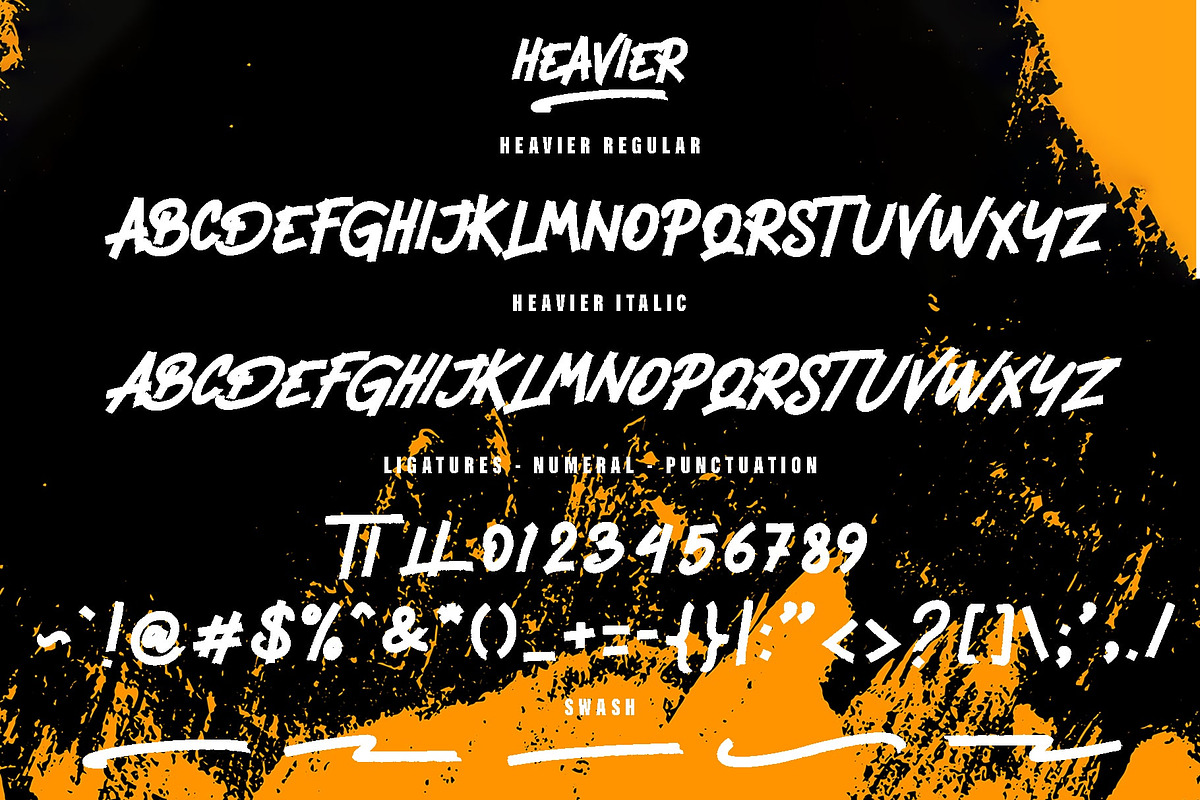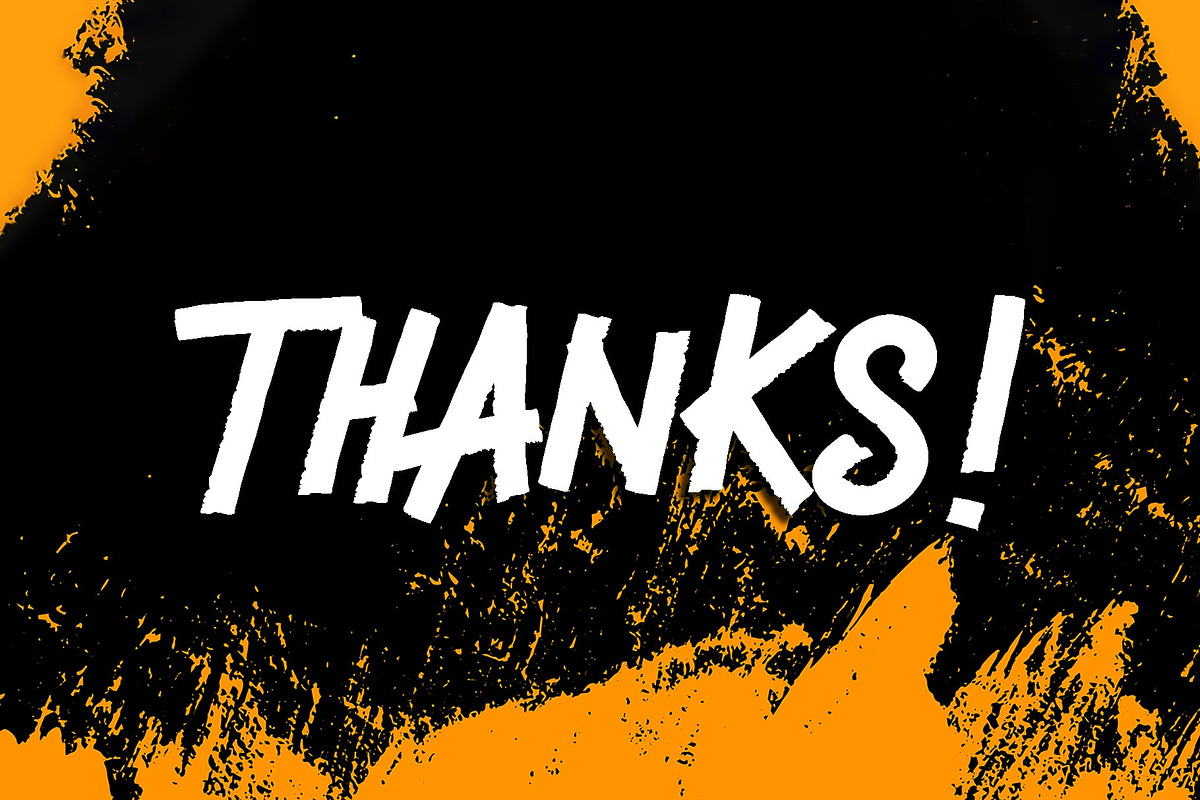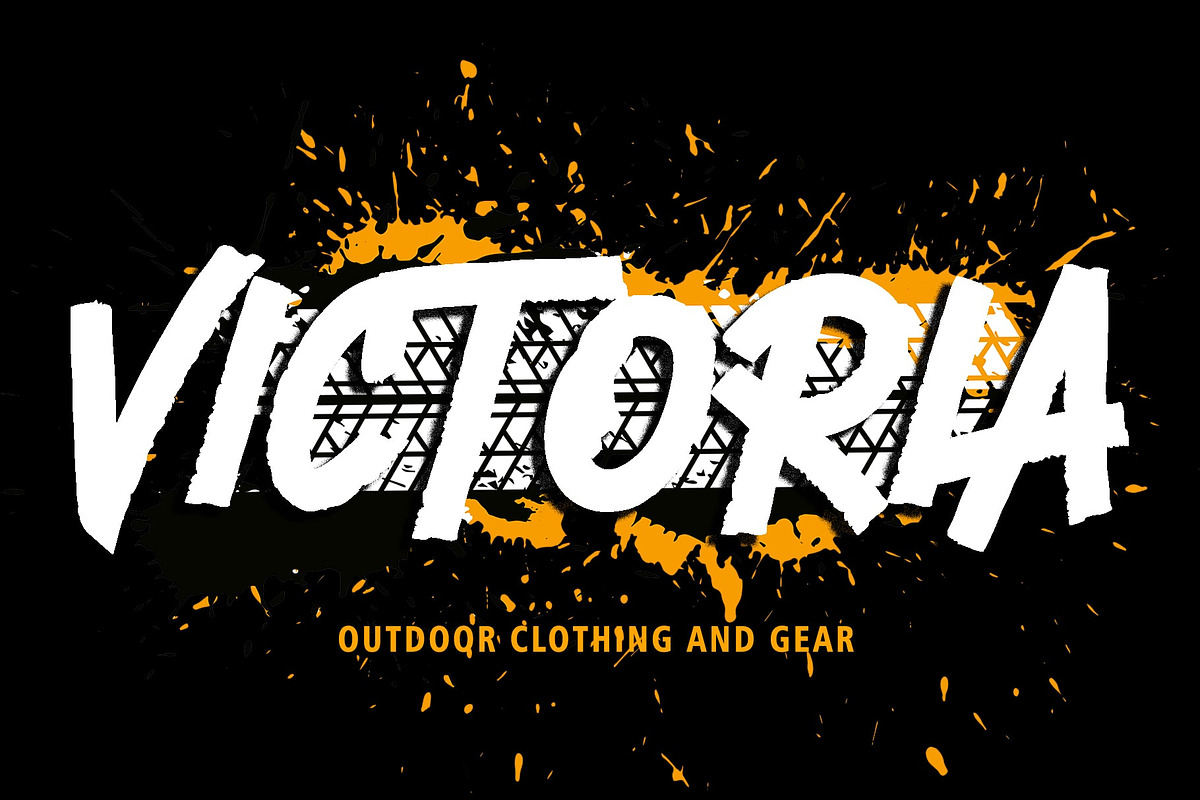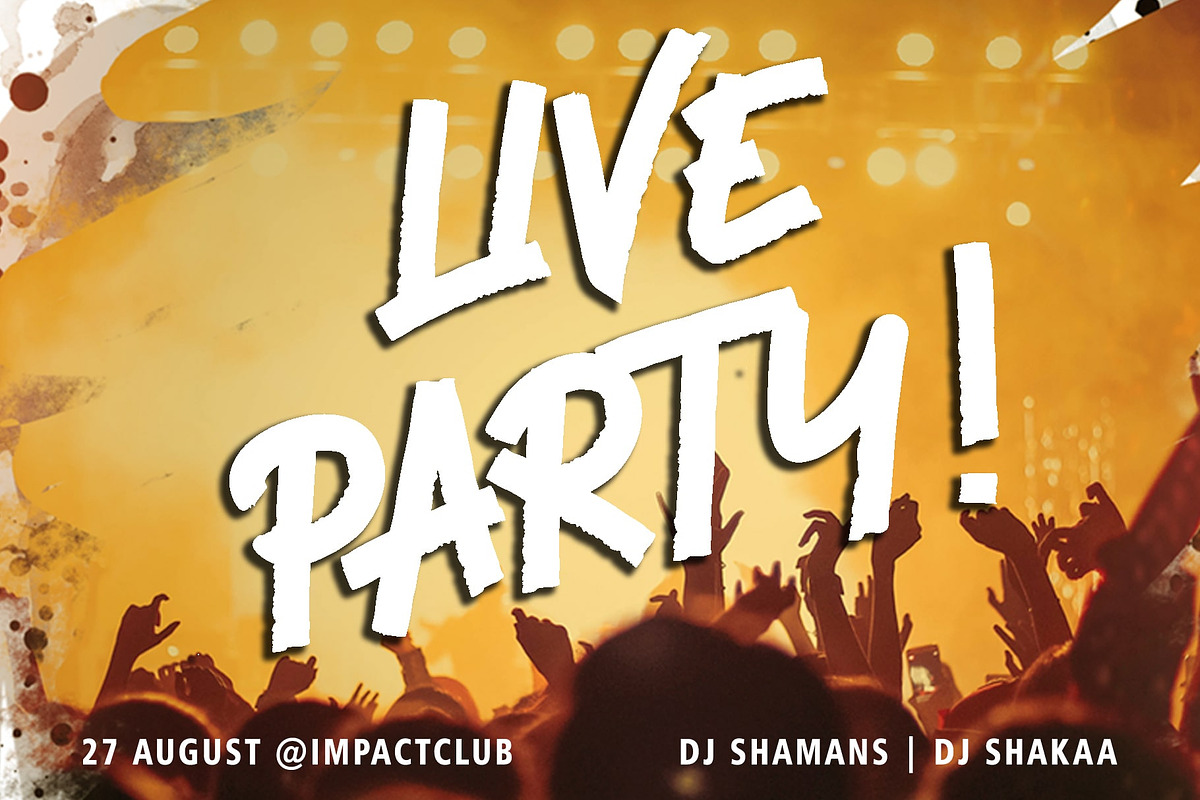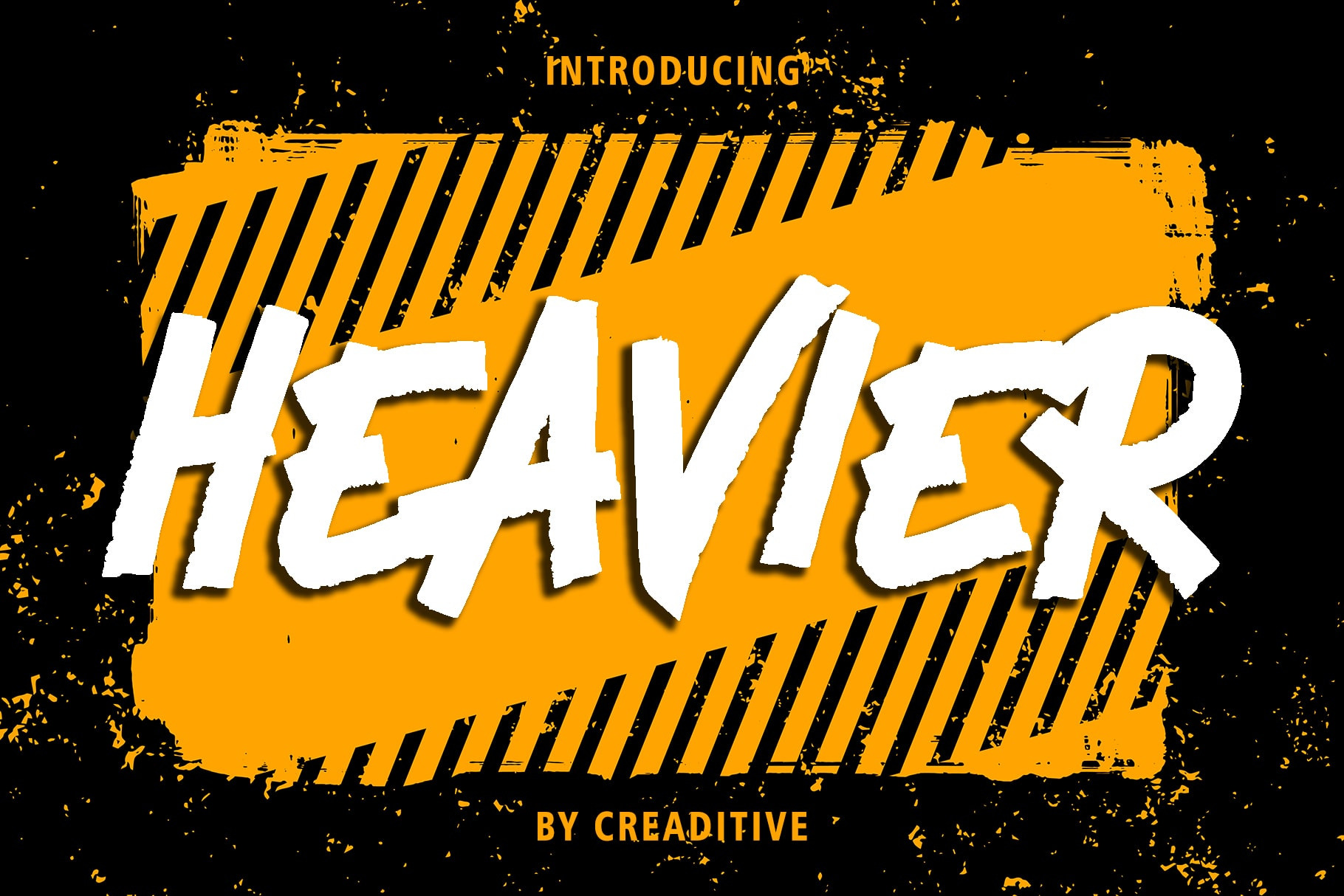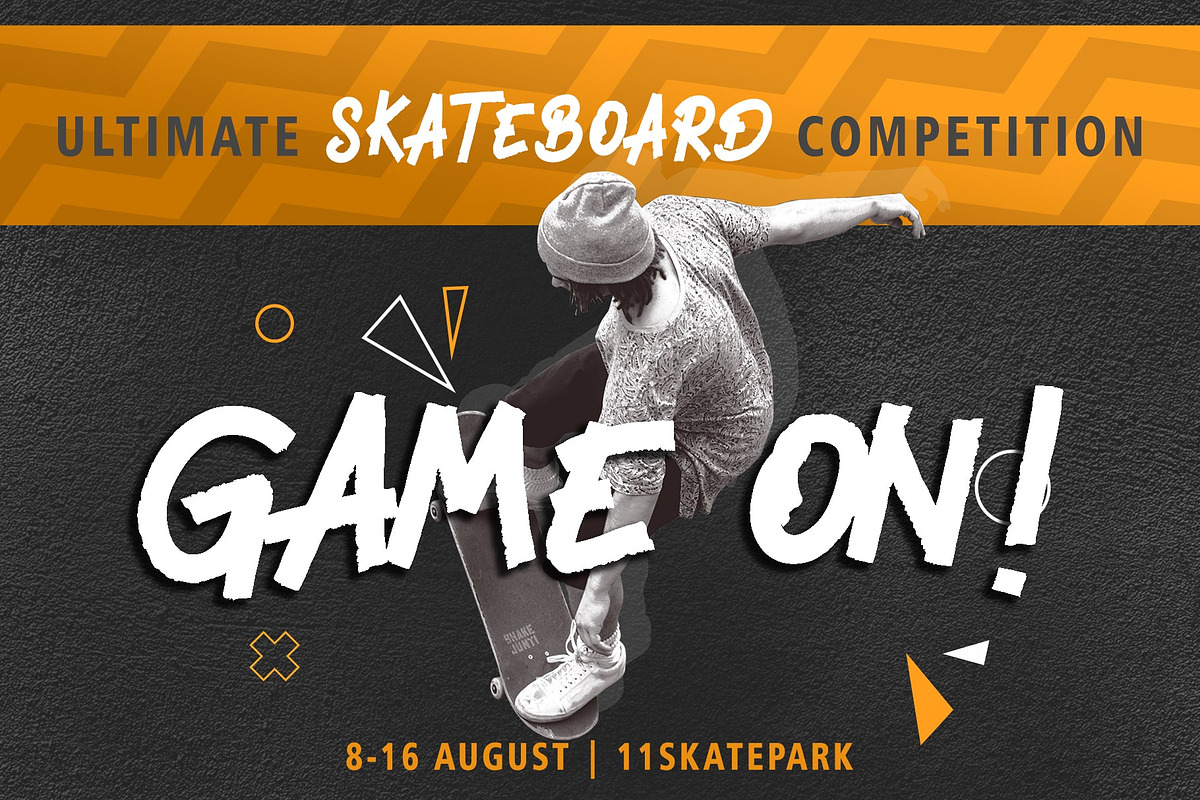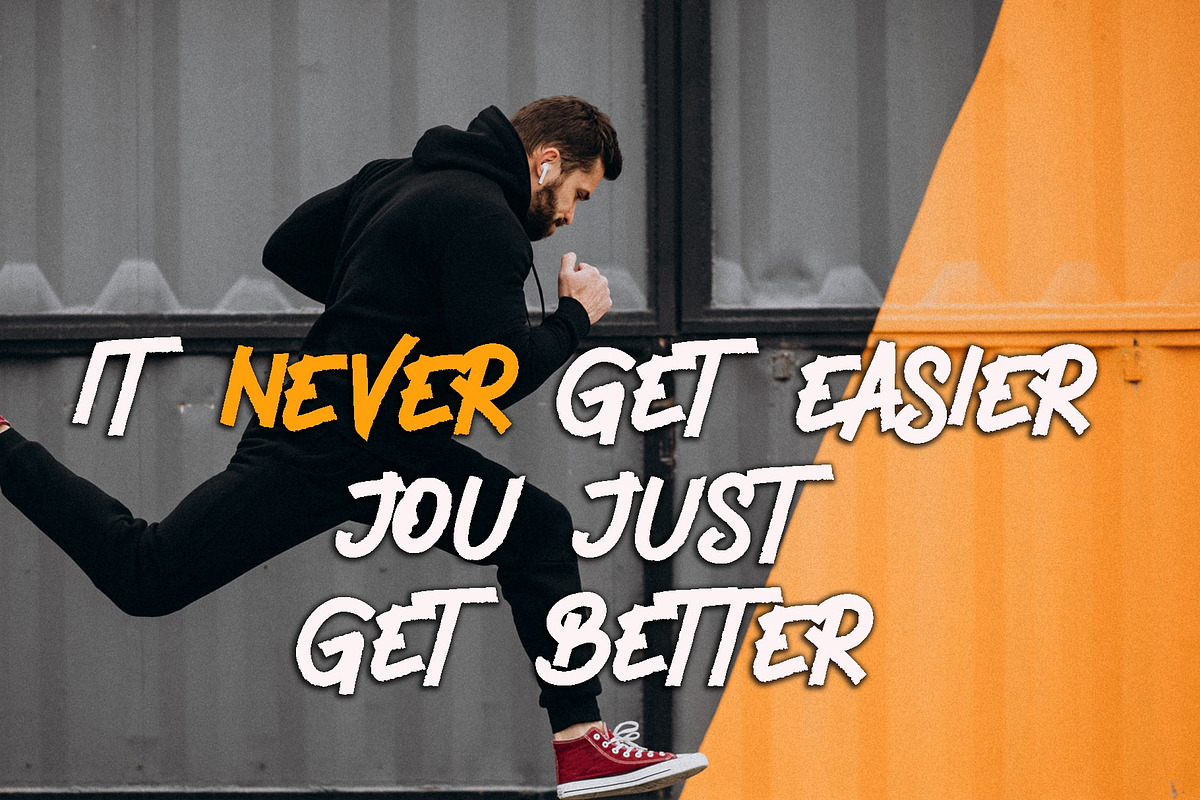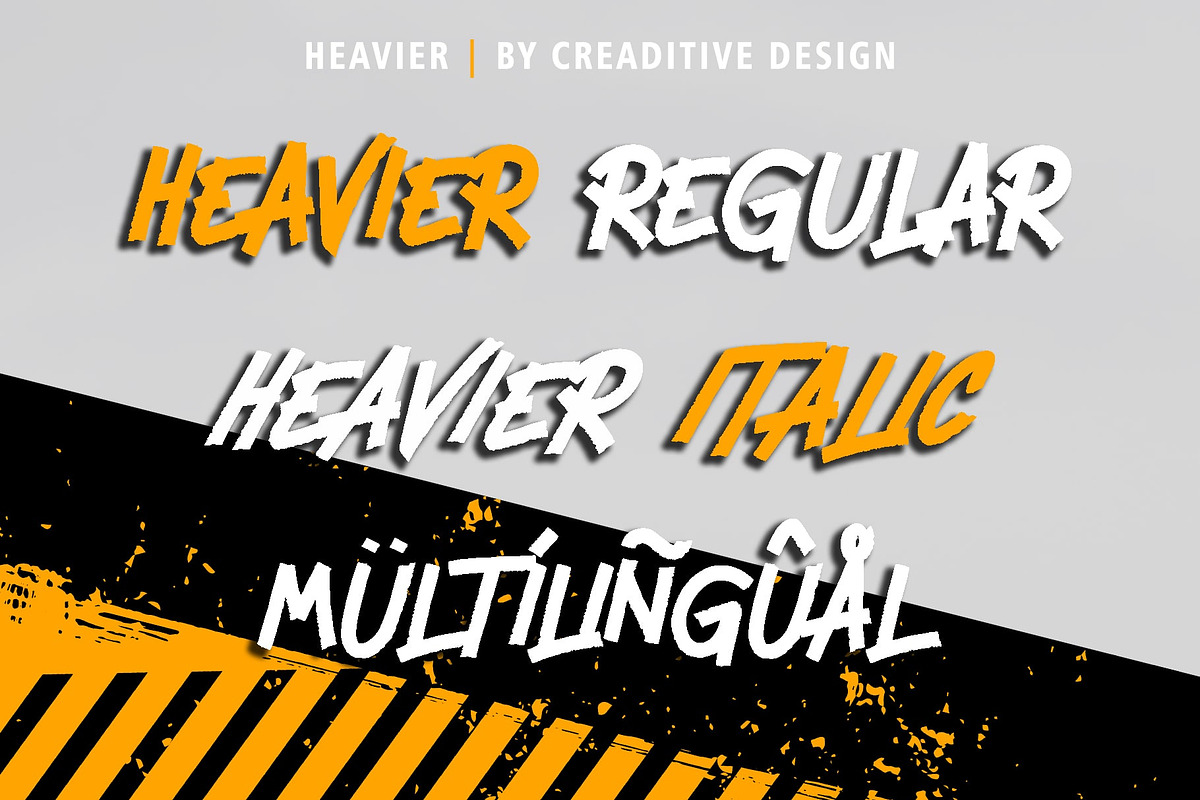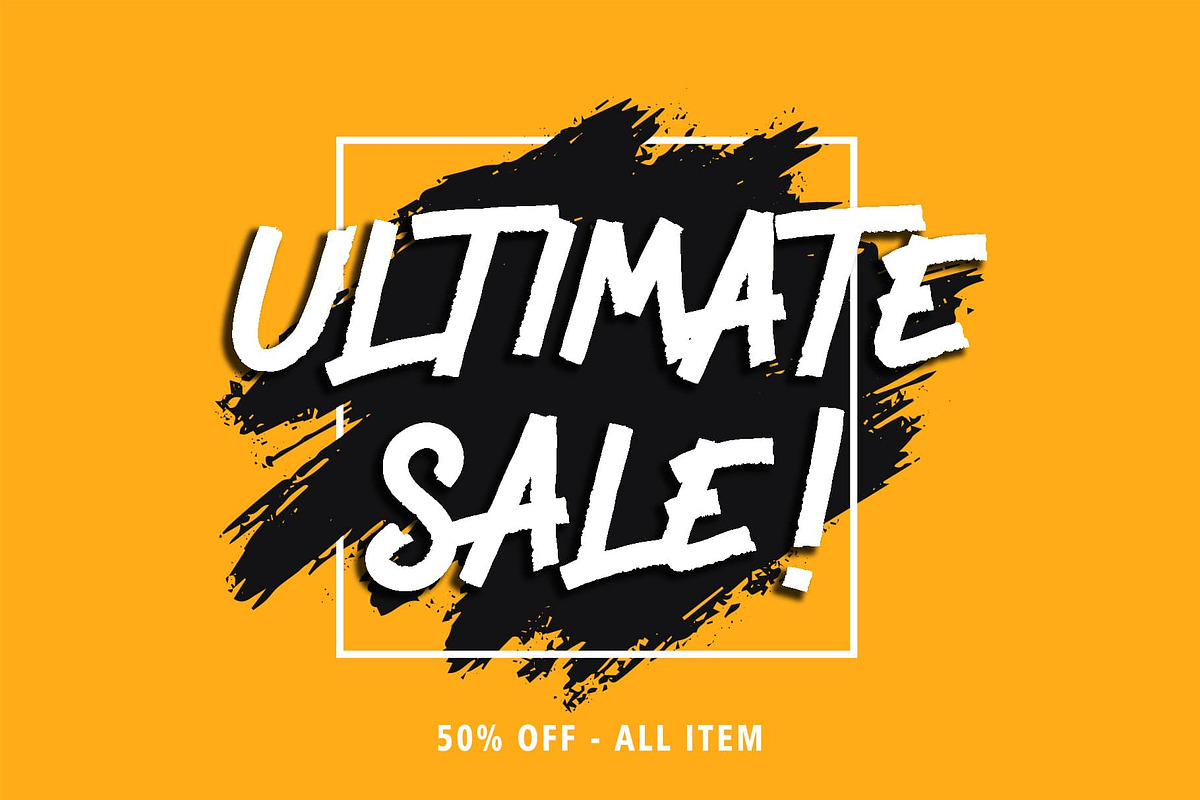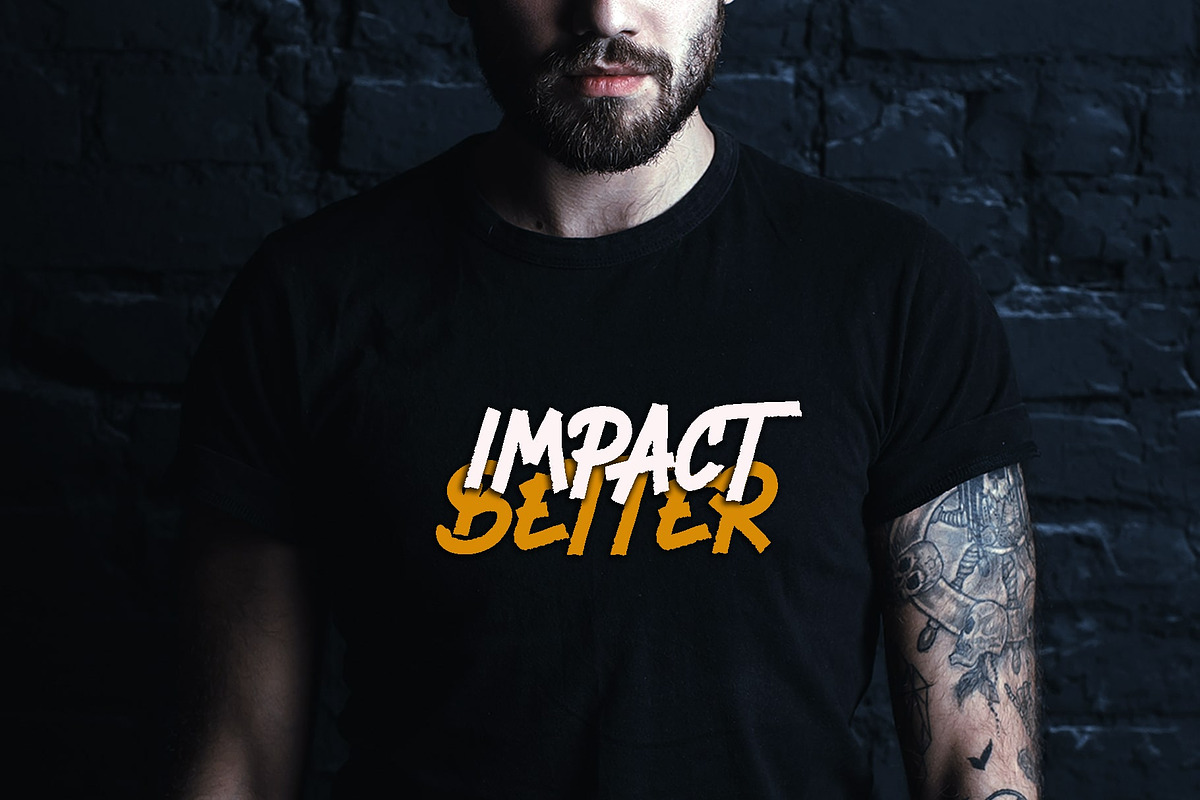
Heavier | Bold Brush Typeface
Proudly Present – Heavier | Bold Brush Typeface
Say hello to Heavier — a bold brush font packed with energy and raw expression. Crafted with thick, confident brush strokes, Heavier brings a handcrafted feel that’s both modern and timeless. Its texture reflects the spontaneous nature of hand-drawn lettering, making every word feel personal and powerful.
Heavier comes in two dynamic styles: Regular and Italic — giving you more flexibility to express your message with impact. Whether you’re going for something loud and bold or slightly more expressive and slanted, this typeface adapts beautifully.
Each character in Heavier is designed to stand out — perfect for capturing attention in posters, headlines, streetwear branding, social media graphics, or as a bold overlay text on any image background.
Heavier Regular & Italic